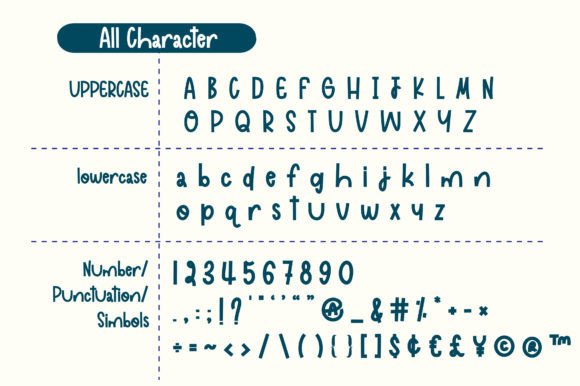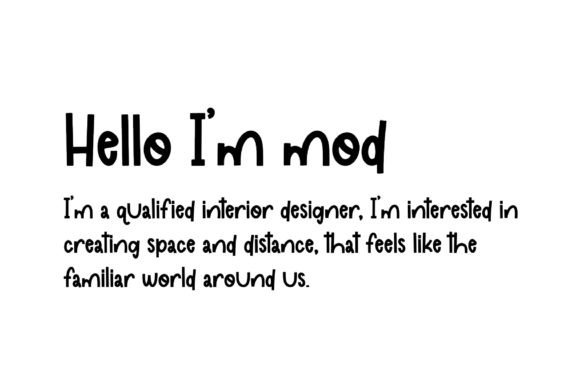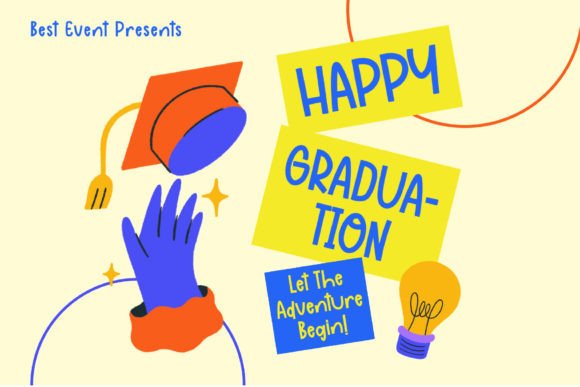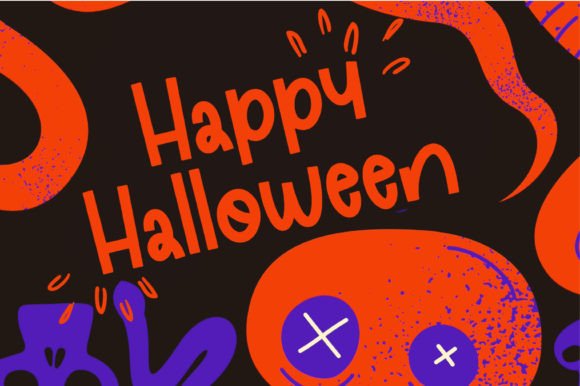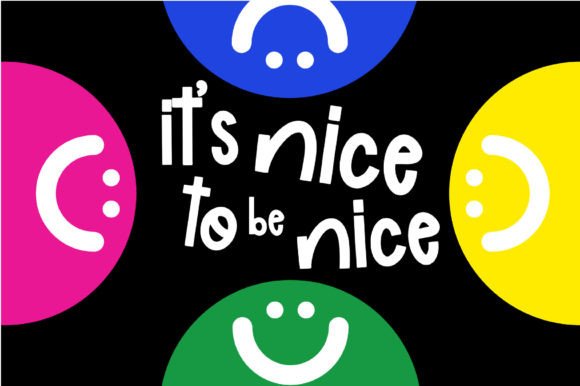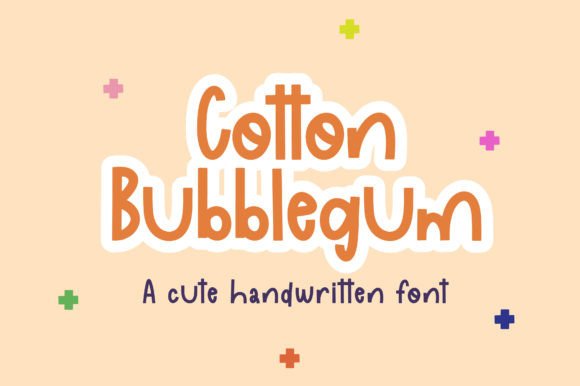
CottonBubblegum Font: The Ultimate Handwritten Typeface for Digital Planning and Note-Taking
Are you a designer, crafter, or simply a stationery enthusiast looking for the perfect font to elevate your digital planning and note-taking game? Look no further than the CottonBubblegum Font, a delightful handwritten typeface that’s sure to capture your heart. In this article, we’ll dive into the world of CottonBubblegum Font, exploring its features, benefits, and uses, as well as provide tips on how to make the most of this versatile font.
What is CottonBubblegum Font?
CottonBubblegum Font is a beautiful, handwritten typeface designed specifically for digital planning and note-taking. This charming font is perfect for creating visually appealing digital study notes, collage notes, and more. With its cute and playful vibe, CottonBubblegum Font is ideal for anyone looking to add a personal touch to their digital content.
Key Features of CottonBubblegum Font
- Handwritten style: CottonBubblegum Font boasts a lovely handwritten style that’s both elegant and approachable.
- Inker Brush Font: This font features an inker brush design, giving it a unique, hand-crafted feel.
- Cute and playful: The CottonBubblegum Font is undeniably cute and playful, making it perfect for creative projects.
- Digital Note Fonts: This font is specifically designed for digital note-taking, making it an excellent choice for Goodnotes, Procreate, and other digital note-taking apps.
- Handwritten Fonts: As a handwritten font, CottonBubblegum Font adds a personal touch to any digital content.
- Neat Handwriting: The font features neat and tidy handwriting, making it easy to read and understand.
- Simple Font: Despite its playful nature, CottonBubblegum Font remains a simple font that’s easy to use and versatile.
- Study Font: This font is perfect for students and learners, making it an excellent choice for digital study notes and materials.
Benefits of Using CottonBubblegum Font
So, why choose CottonBubblegum Font for your digital planning and note-taking needs? Here are just a few benefits of using this delightful font:
- Personal touch: CottonBubblegum Font adds a personal touch to your digital content, making it more engaging and visually appealing.
- Easy to read: The font’s neat handwriting and simple design make it easy to read and understand, even on digital devices.
- Versatile: CottonBubblegum Font is suitable for a wide range of applications, from digital planning and note-taking to crafting and design.
- Cute and playful: This font’s playful nature makes it perfect for creative projects and designs.
Using CottonBubblegum Font for Digital Planning and Note-Taking
- Digital study notes: Use CottonBubblegum Font to create visually appealing digital study notes that are easy to read and understand.
- Collage notes: This font is perfect for creating collage notes, adding a personal touch to your digital content.
- Digital planning: CottonBubblegum Font is ideal for digital planning, allowing you to create beautiful and functional digital planners.
- Goodnotes and Procreate: This font is specifically designed for use with Goodnotes and Procreate, making it an excellent choice for digital note-taking.
In conclusion, CottonBubblegum Font is a delightful handwritten typeface that’s perfect for digital planning and note-taking. With its cute and playful vibe, neat handwriting, and simple design, this font is sure to capture your heart. Whether you’re a designer, crafter, or simply a stationery enthusiast, CottonBubblegum Font is an excellent choice for adding a personal touch to your digital content.